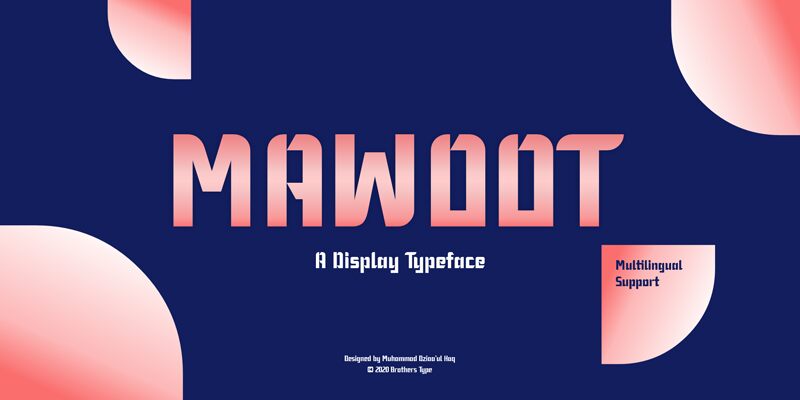
Mawoot, crafted by Brainware Graphic, is a bold display font that exudes a striking techno vibe. Its robust and commanding presence makes it perfect for projects demanding attention. The geometric precision and futuristic flair of Mawoot set it apart, making it an ideal choice for tech-driven designs, modern branding, and eye-catching headlines.
Whether you're working on digital interfaces or print media, Mawoot's distinct style adds a layer of sophistication and modernity. Its boldness ensures readability while maintaining an edgy aesthetic. Embrace Mawoot to infuse your designs with contemporary elegance and powerful visual impact.